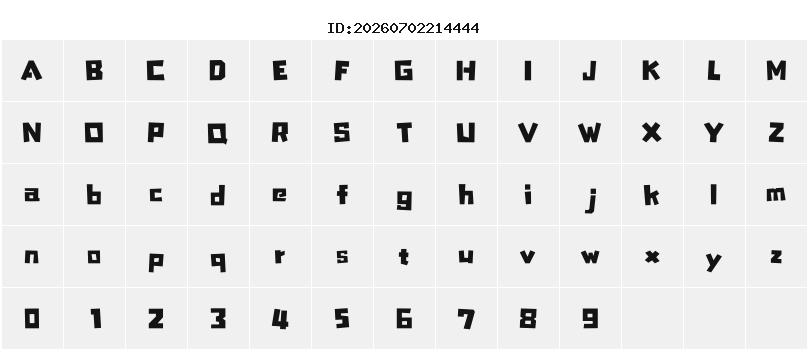
033-上首方糖体 Preview
• Font Name: 033-上首方糖体
• Full Font Name: 033-上首方糖体
About 033-上首方糖体.ttf
033-上首方糖体.ttf is a modern, elegant sans-serif font designed for ultimate readability and visual harmony. Perfect for branding, headlines, web design, and print materials.